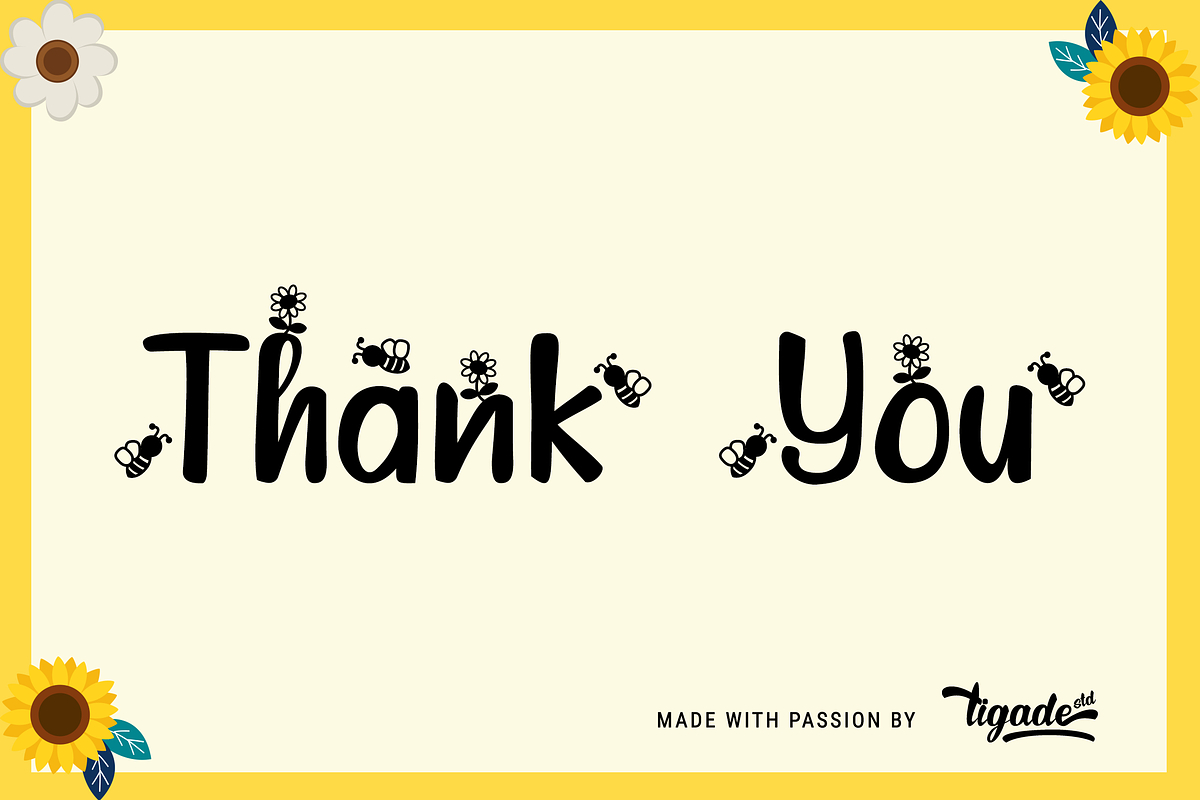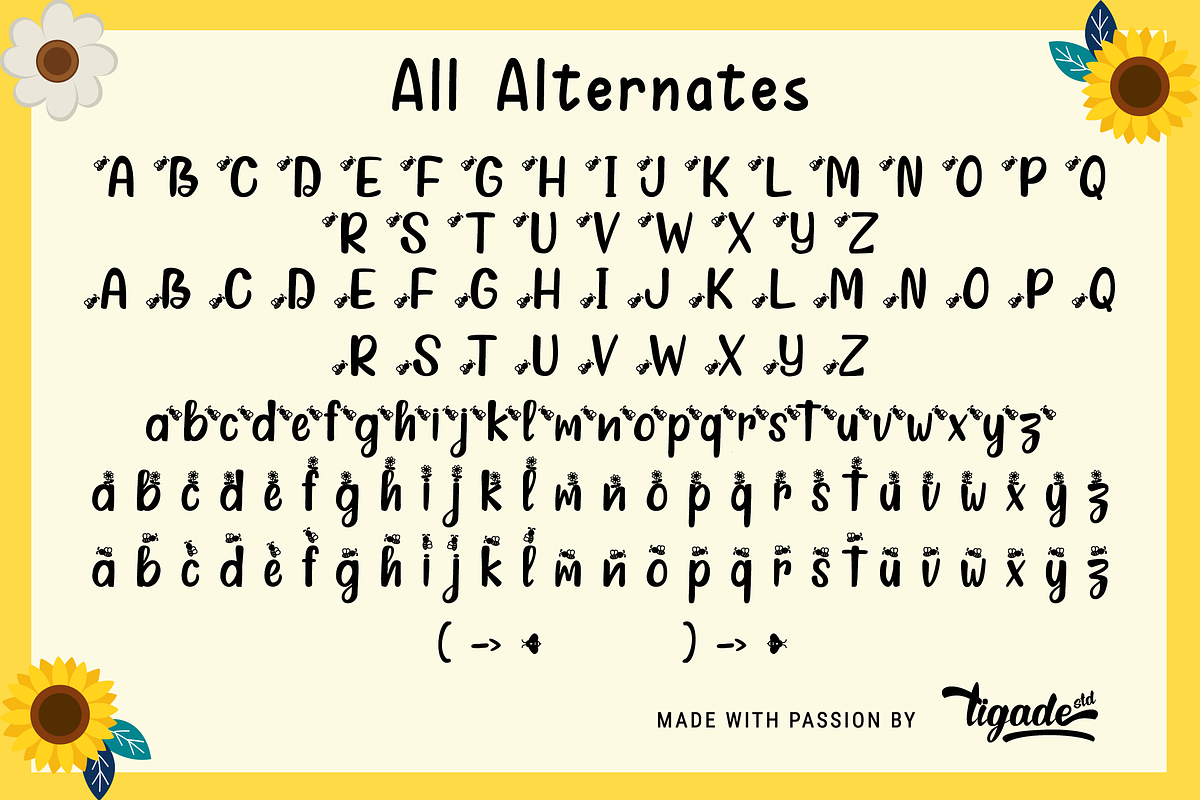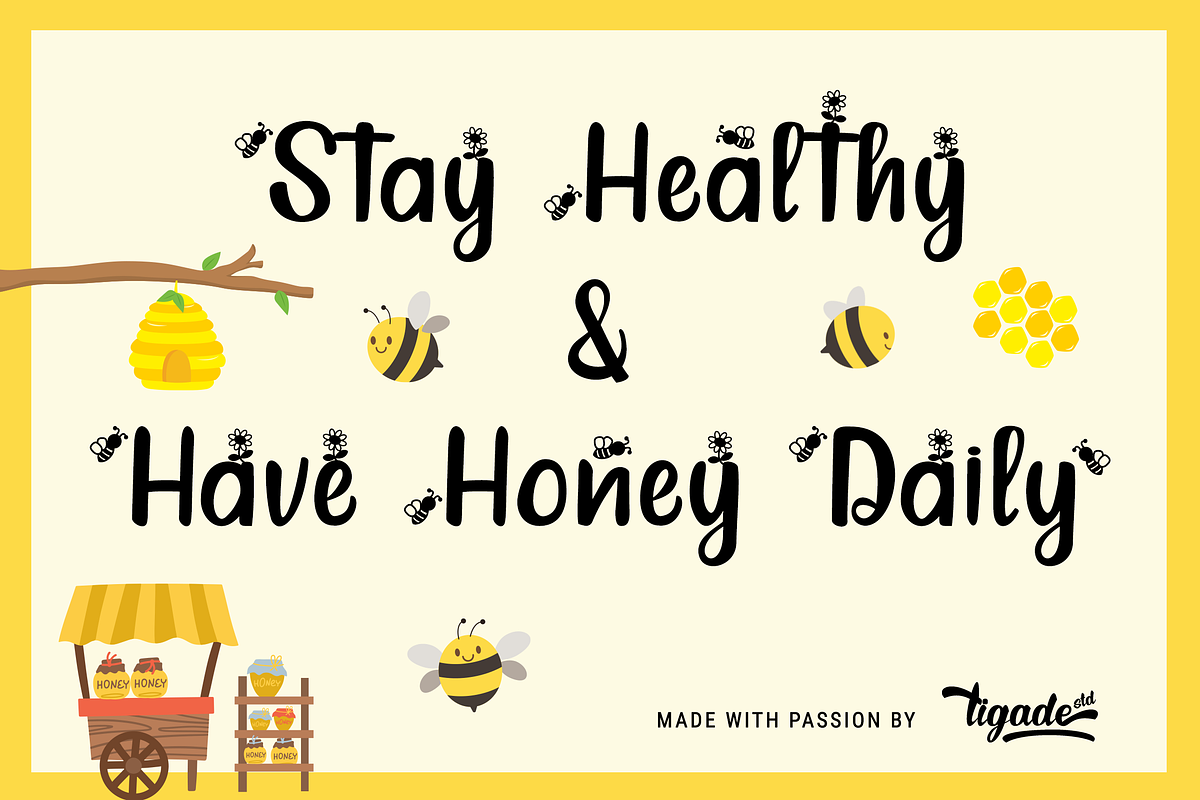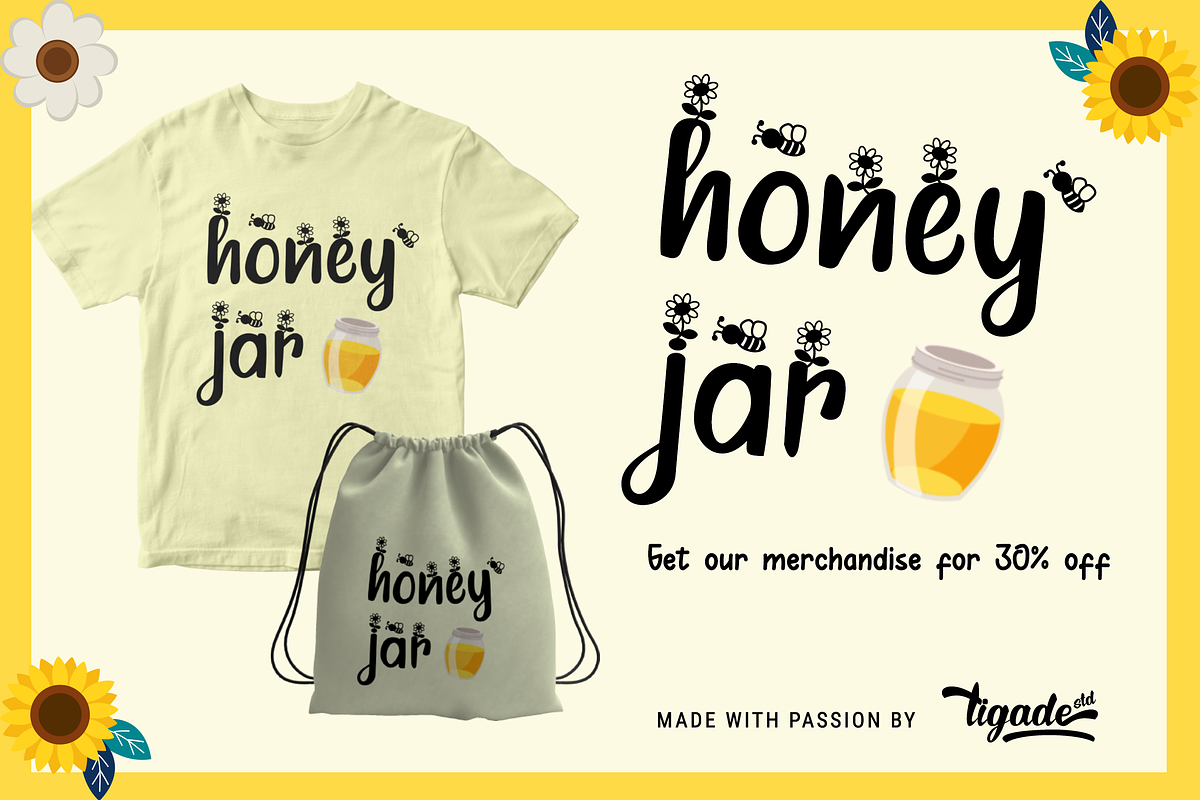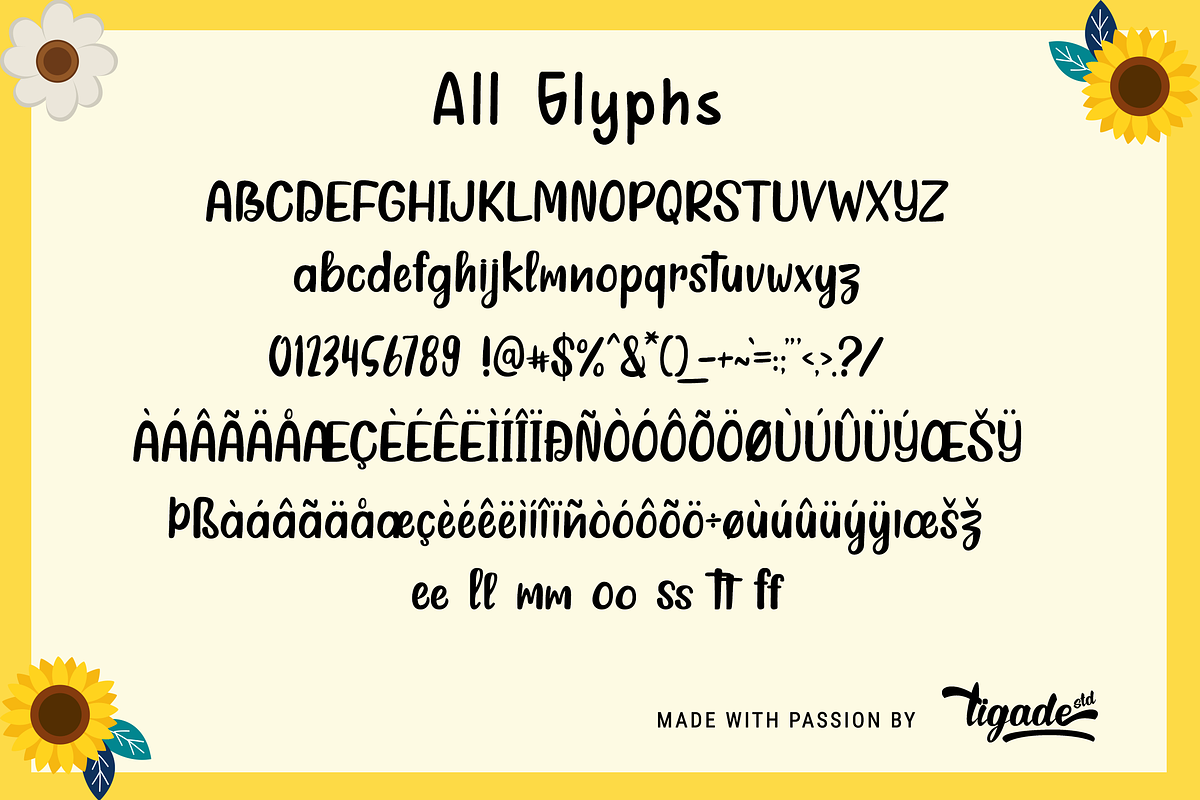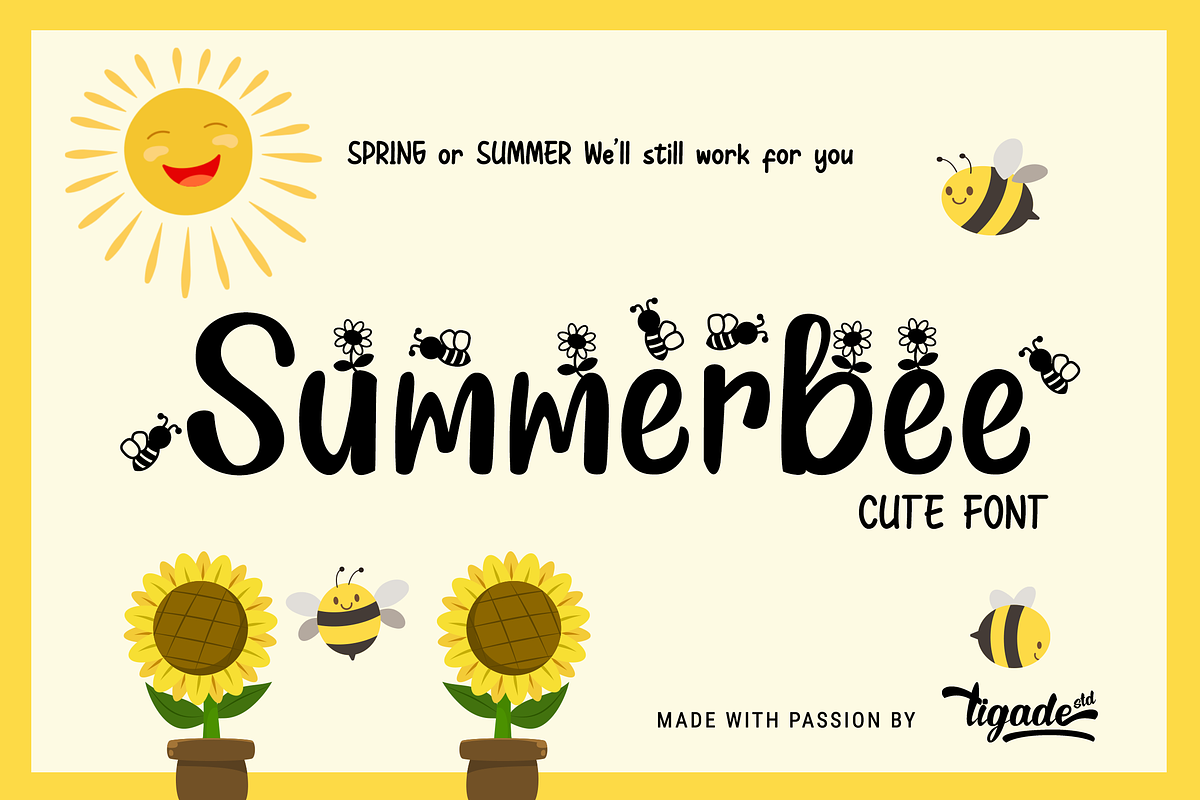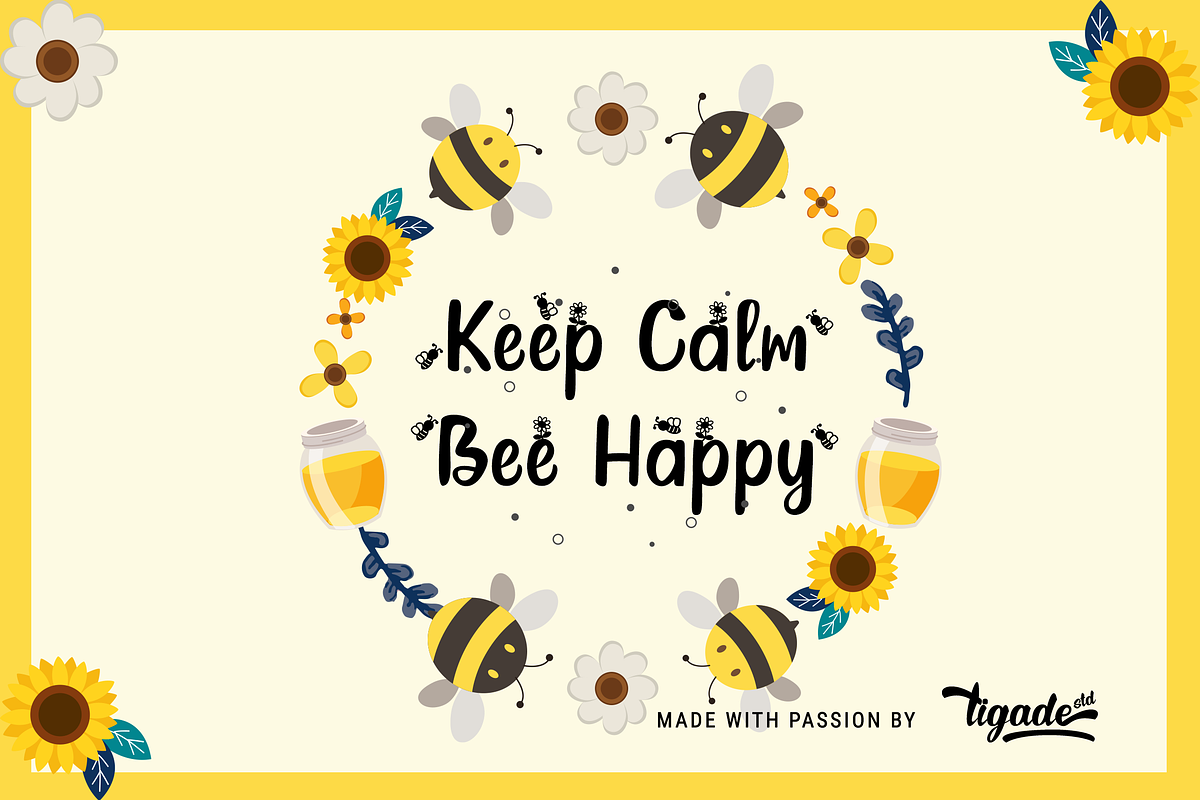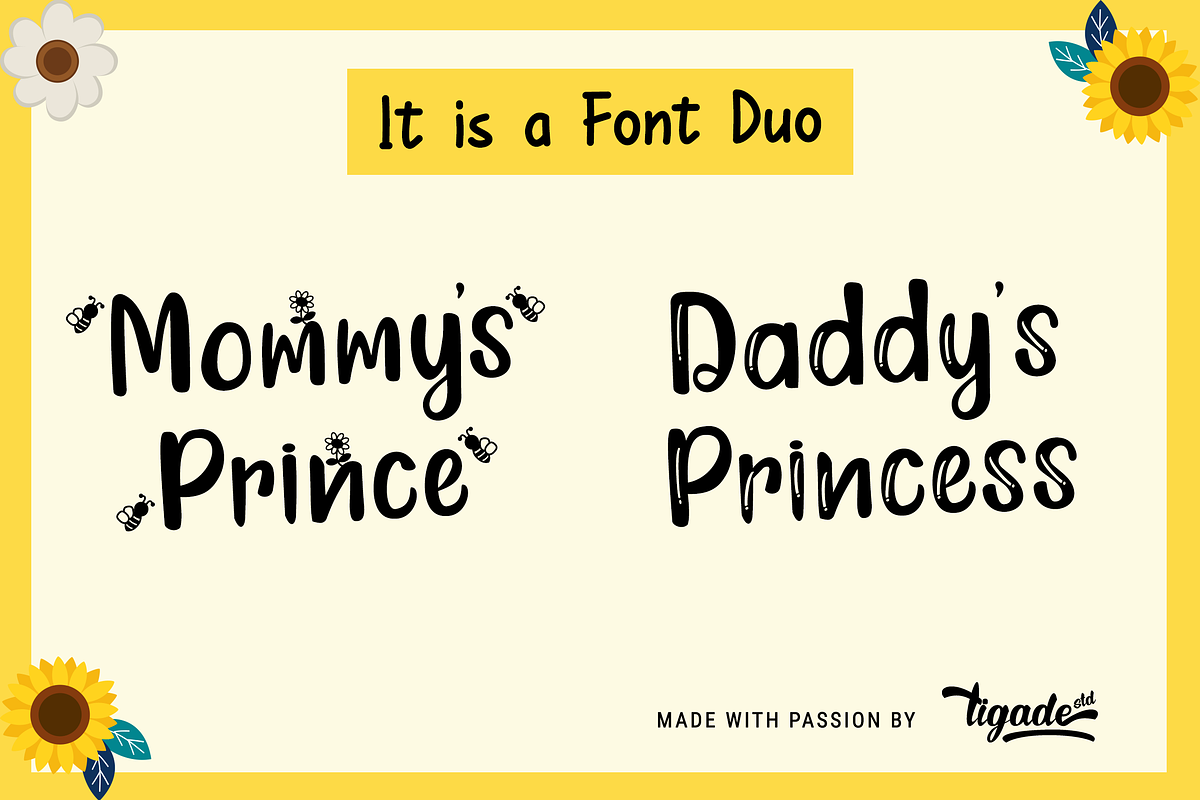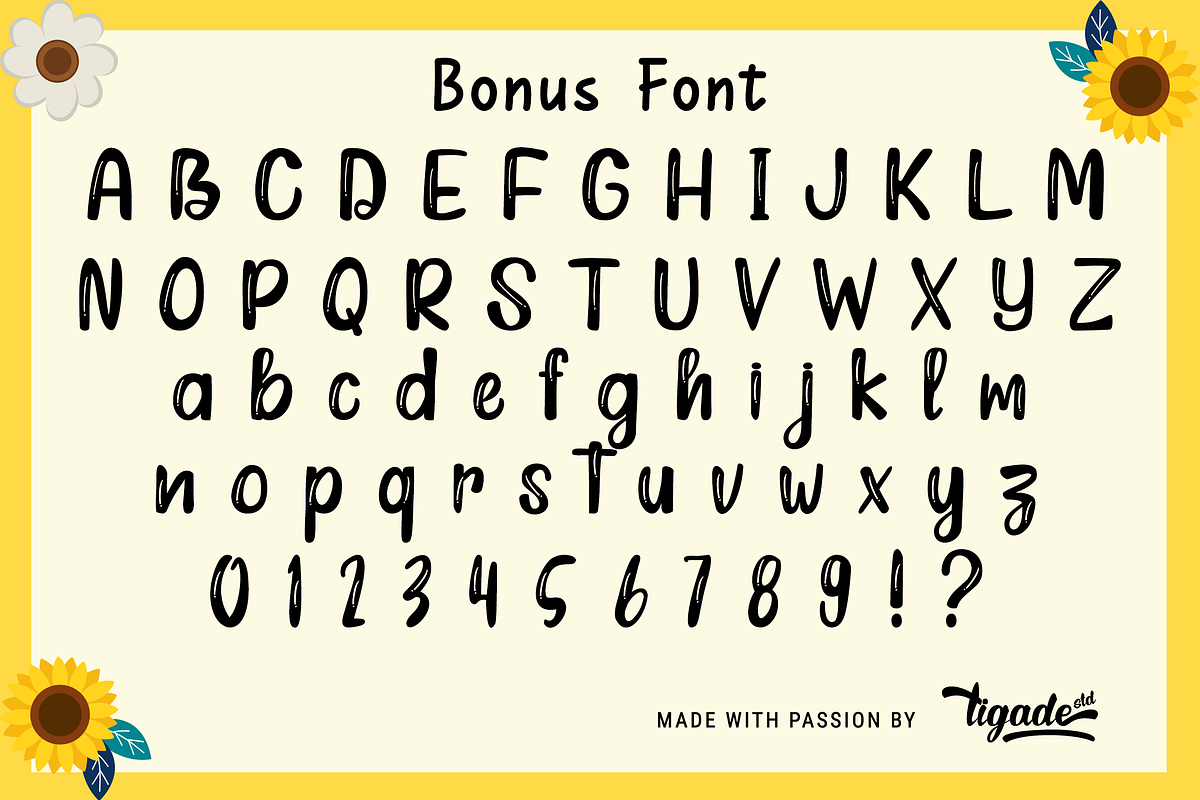
Summerbee | Summer Sunflower Bee
Summerbee unlike the name, Bee is actually active in all seasons except winter.
This is a cute, happy, sweet font that suitable for Seasonal theme such as Spring and Summer. Not only that, branding with Bee and flower theme would also be fit.
It comes with some alternate glyphs that are accessible via All Alternate (easy access by using Adobe Illustrator or Photoshop). Which can enhance your design to another level!
Great for any (not limited to) Spring or Summer design. It is suitable for Logo, Cards, Branding, Social Media, Youtube Thumbnail, Advertisement, Posters, any many others.
- Standard Characters (Uppercase and Lowercase)
- Punctuations
- International Characters
- Alternate Characters (Bees and Flowers)
- Summerbee Comic Style